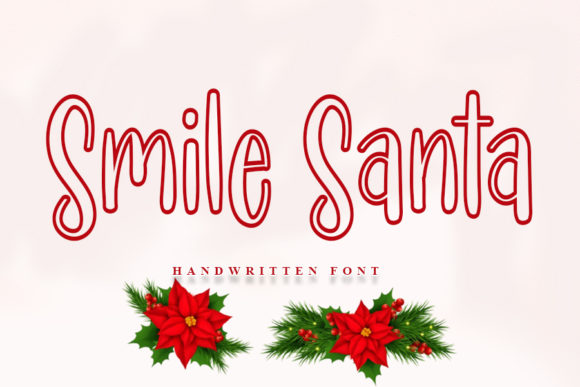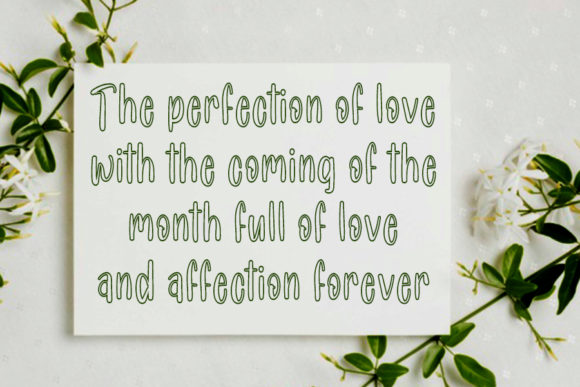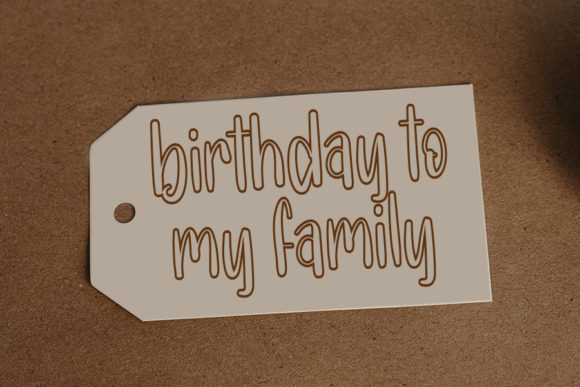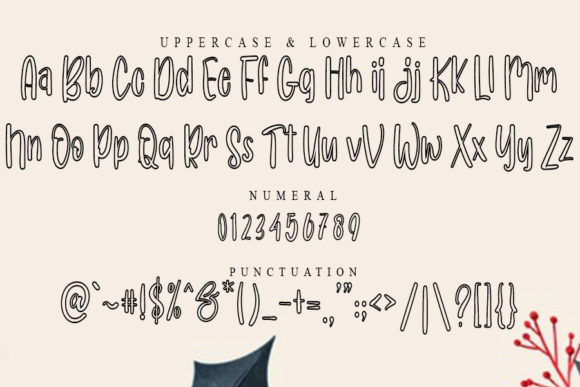
Smile Santa Font
About Smile Santa Font
Smile Santa is a thin lettered and outlined handwritten font. It can be used for various purposes such as logos, headings, t-shirts, letterhead, signage, labels, news, posters, badges and so much more.